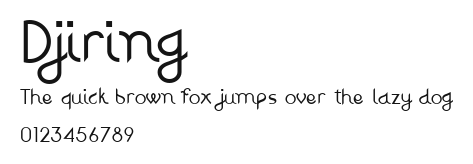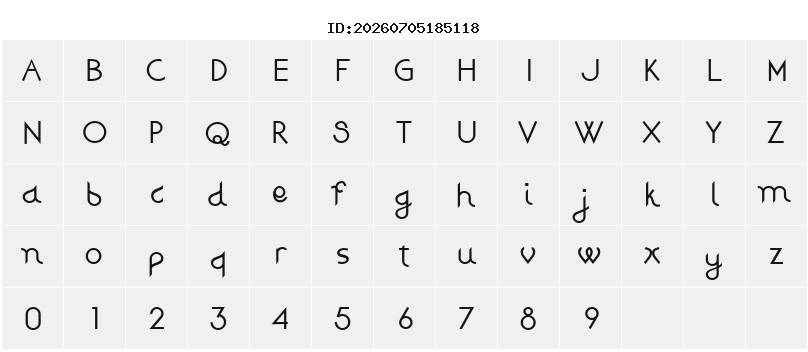
• Font Name: Djiring
• Full Font Name: Djiring Regular
• Designer: Luu Thy
• Manufacturer: Luu Thy
About Djiring.ttf
Djiring.ttf is a modern, elegant sans-serif font designed for ultimate readability and visual harmony. Perfect for branding, headlines, web design, and print materials.